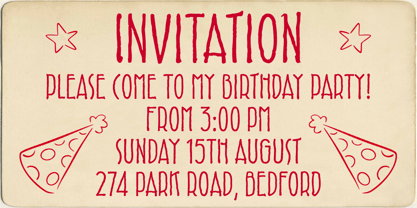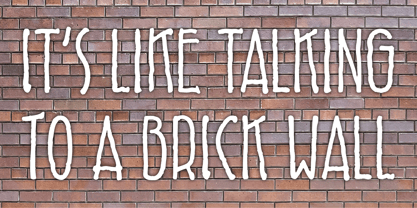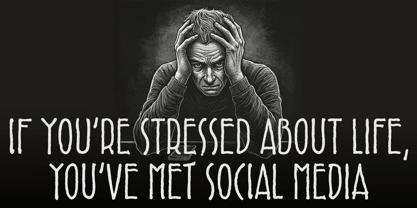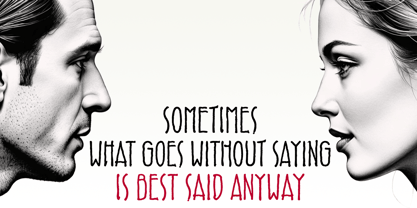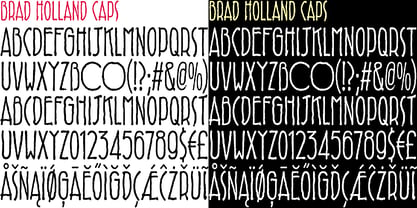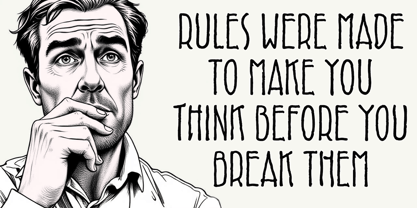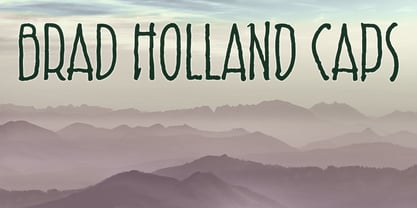
Brad Holland Caps
by K-Type
The Brad Holland Caps Font Family was designed by Keith Bates and published by K-Type. Brad Holland Caps contains 1 styles. More about this family
Brad Holland Caps is a doodly, art deco-ish font inspired by the hand drawn lettering of American artist, Brad Holland. It's fun and informal, tall and wobbly, and ideal for light-hearted titles, headings, captions, flyers and posters. This caps-only font contains two alternative versions of each capital letter, easily accessed at the uppercase and lowercase keystrokes.
Designers: Keith Bates
Foundry: K-Type